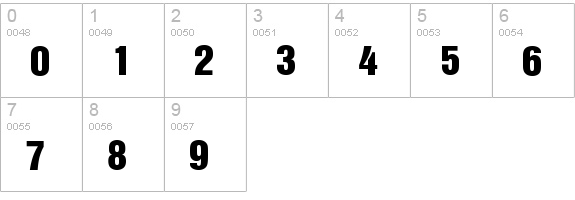
Olympia-ExtraBoldCond Font Details
Olympia-ExtraBoldCond is a striking and bold font that commands attention with its strong and authoritative presence. This versatile typeface exudes a sense of power and elegance, making it perfect for headlines, titles, and other attention-grabbing design elements. Its condensed design allows for efficient use of space while maintaining readability and impact. What sets Olympia-ExtraBoldCond apart is that it is available for free download at FontsMarket.com. This means that designers and creatives can easily access and incorporate this impactful font into their projects without any cost. With its clean lines, sharp angles, and robust appearance, Olympia-ExtraBoldCond is sure to make a bold statement and enhance the visual appeal of any design.